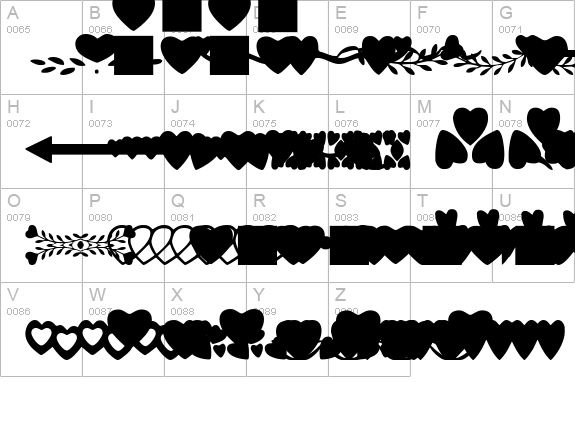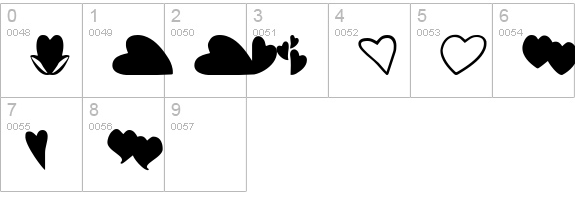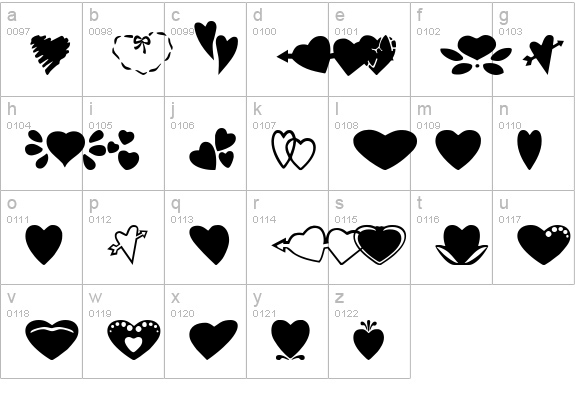
SC Hearts Font Details
Introducing SC Hearts, a whimsical and enchanting font that will add a touch of love and romance to any project. With its delicate and intricate heart-shaped details, this font is perfect for creating beautiful and heartfelt designs. Whether you're designing wedding invitations, love notes, or Valentine's Day cards, SC Hearts will surely captivate the hearts of your audience. But what makes SC Hearts truly special is that it is not only a stunning font, but it is also free! Yes, you heard it right. You can freely download SC Hearts at FontsMarket.com, a trusted and reliable source for high-quality fonts. Now, you can express your love and creativity without breaking the bank. SC Hearts offers a wide range of characters, including uppercase and lowercase letters, numerals, punctuation marks, and special characters. Its graceful and flowing strokes will effortlessly add a romantic flair to your designs, making them stand out from the crowd. Whether you're a professional designer or a passionate DIY enthusiast, SC Hearts is the perfect addition to your font collection. Its versatility allows you to use it in various projects, from branding and logo design to social media graphics and greeting cards. So, don't wait any longer! Visit FontsMarket.com today and freely download SC Hearts. Let this charming font be the key to unlocking a world of love and creativity in your designs. Spread the love and make every project a heartfelt masterpiece with SC Hearts.